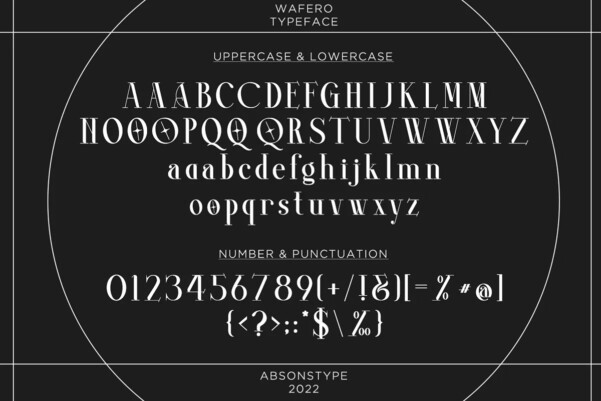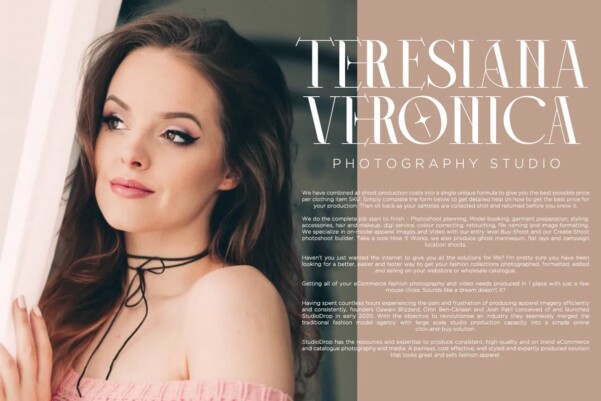
Wafero Font
Wafero Font, a display font with elegant, classic & stylish curves. It’s romantic, classy and modern all wrapped into one, and surely can not be missed in your font collection.
WAFERO is a variable font family which means it comes in Regular & Italic. This font is not only versatile but the definition of elegance & class. It’s a combination of luxury, and high fashion all rolled into one. Don’t wait to add this luxury font family to your collection and start designing straight away.